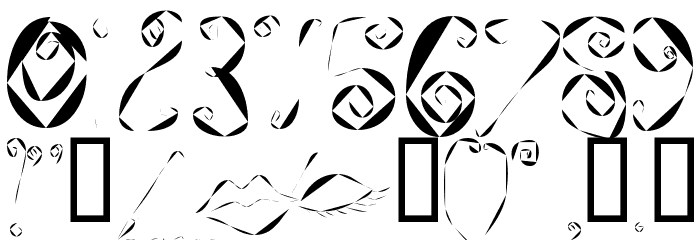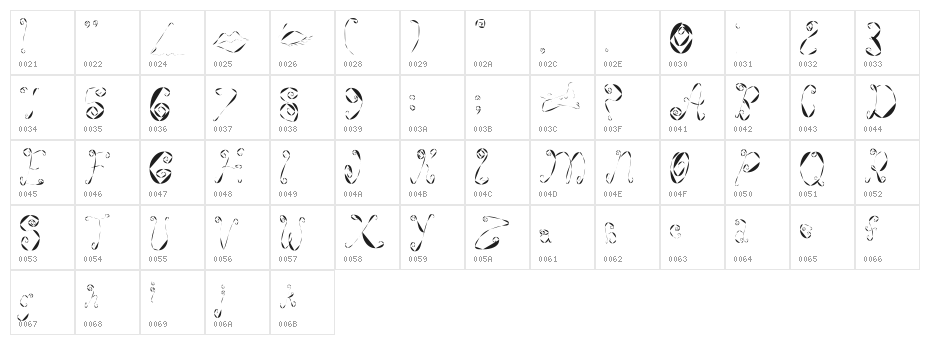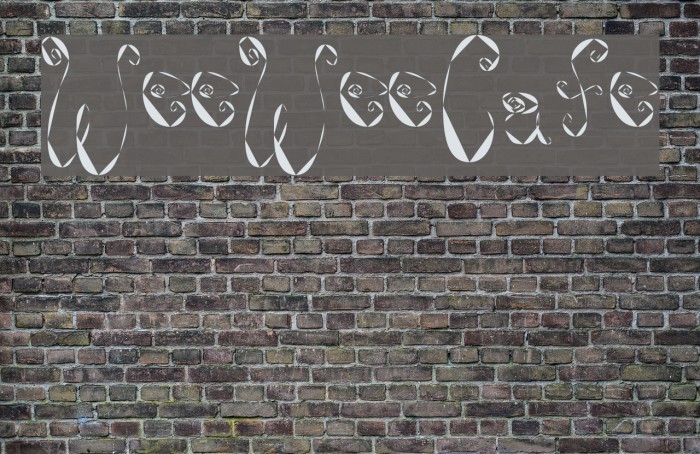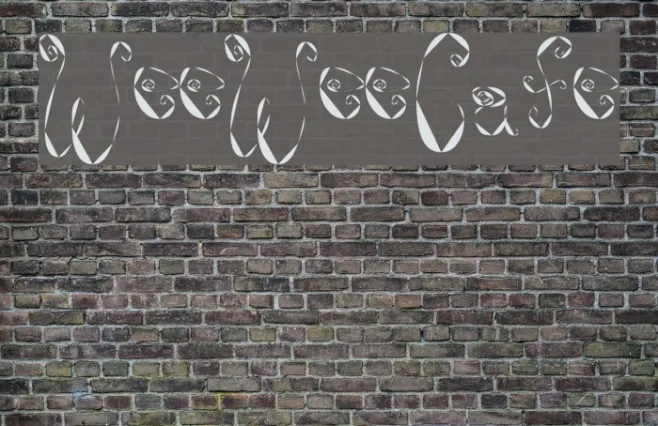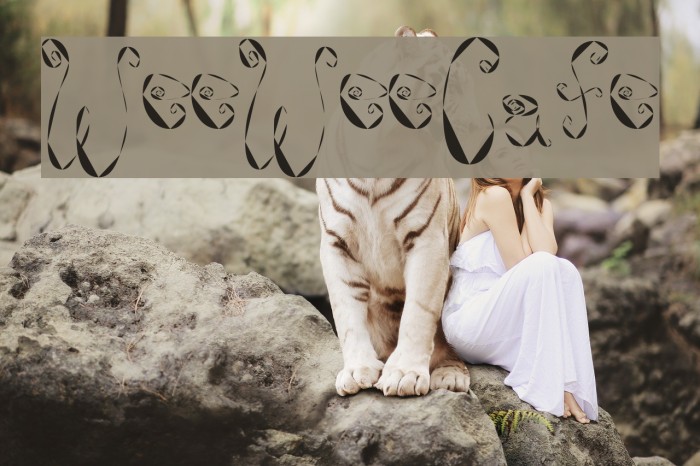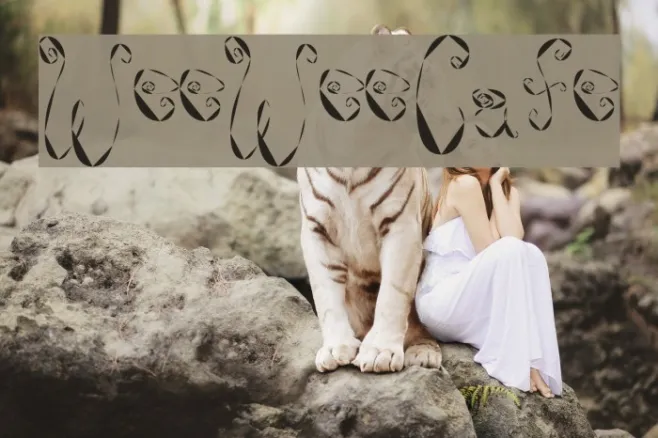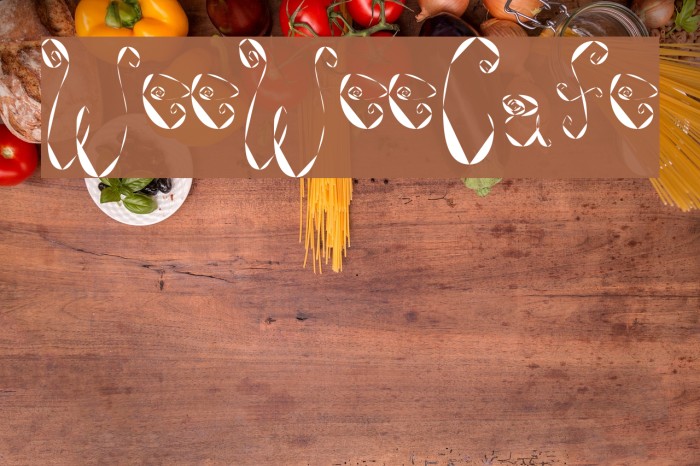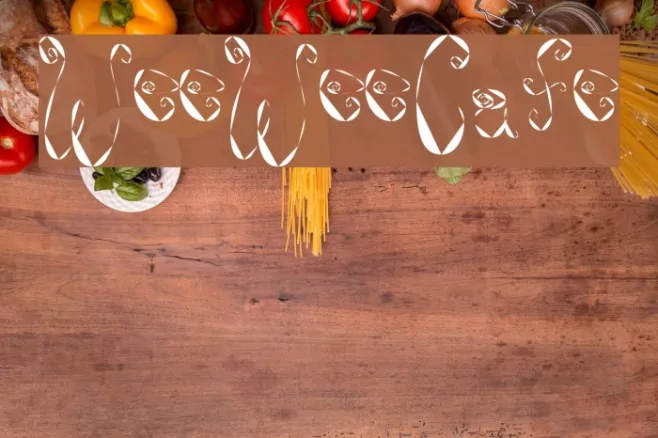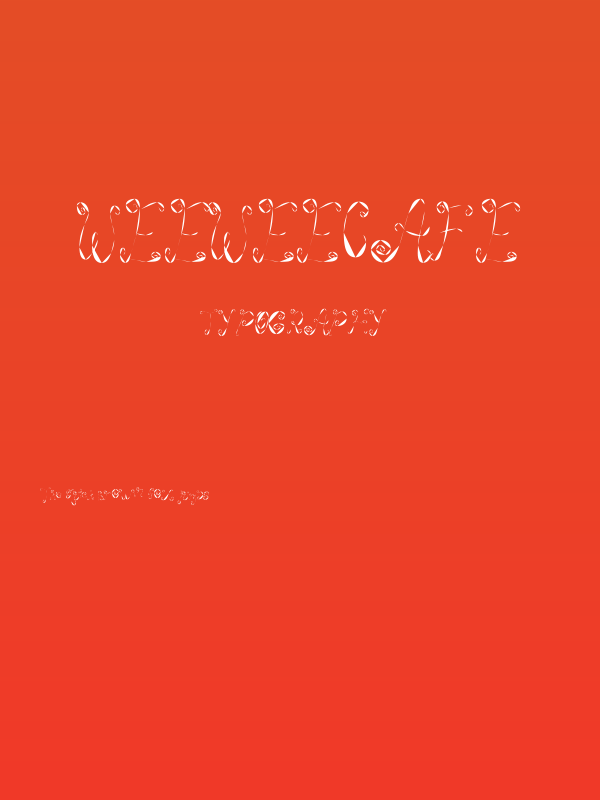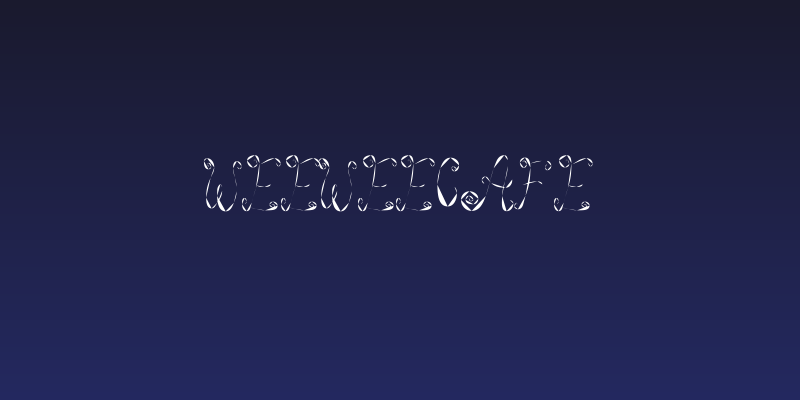
WeeWeeCafe Font
WeeWeeCafe Description
This font features an intricate and decorative style with a whimsical, floral motif. Each character is adorned with swirling, vine-like embellishments that give it a playful and artistic appearance. The letters are crafted with a combination of thick and thin strokes, creating a dynamic contrast that enhances its visual appeal. The overall design is reminiscent of hand-drawn calligraphy, with a touch of elegance and fantasy. The unique character shapes and embellishments make it stand out, suitable for creative and expressive design projects.
| Proposed Projects | Ideal for wedding invitations, greeting cards, artistic posters, and branding for creative businesses. |